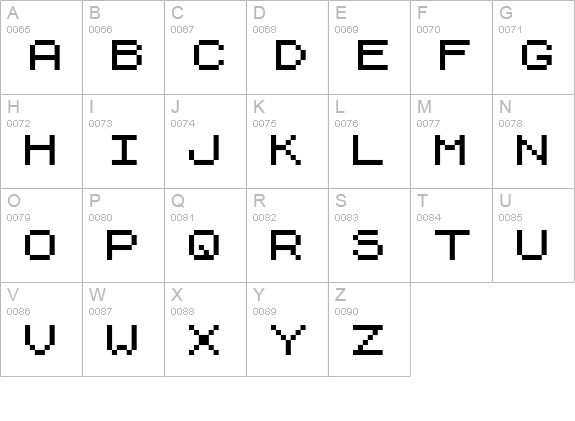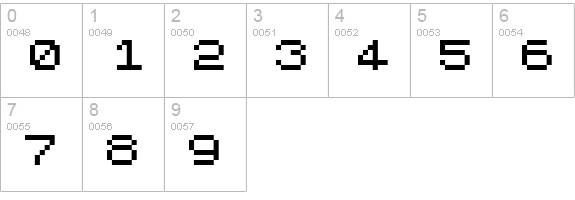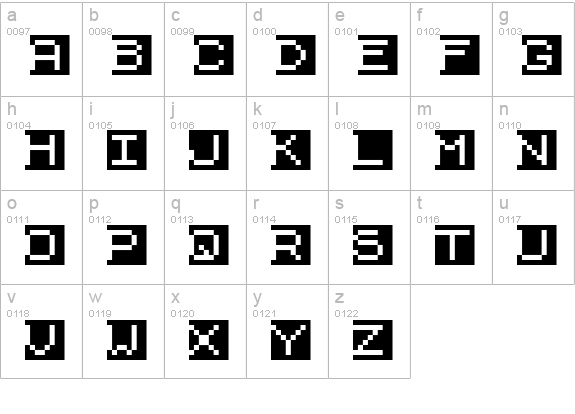
ZX81 Font Details
The ZX81 font is a sleek and retro typeface inspired by the classic computer system of the same name. Its pixelated design gives it a nostalgic feel, perfect for evoking memories of early computing days. The font features sharp edges and a minimalistic aesthetic, making it ideal for a wide range of design projects. Best of all, the ZX81 font is available for free download at FontsMarket.com. Whether you're creating a vintage video game-inspired design or simply want to add a touch of old-school charm to your project, the ZX81 font is a versatile and stylish choice. Download it today and let your creativity soar with this timeless typeface.